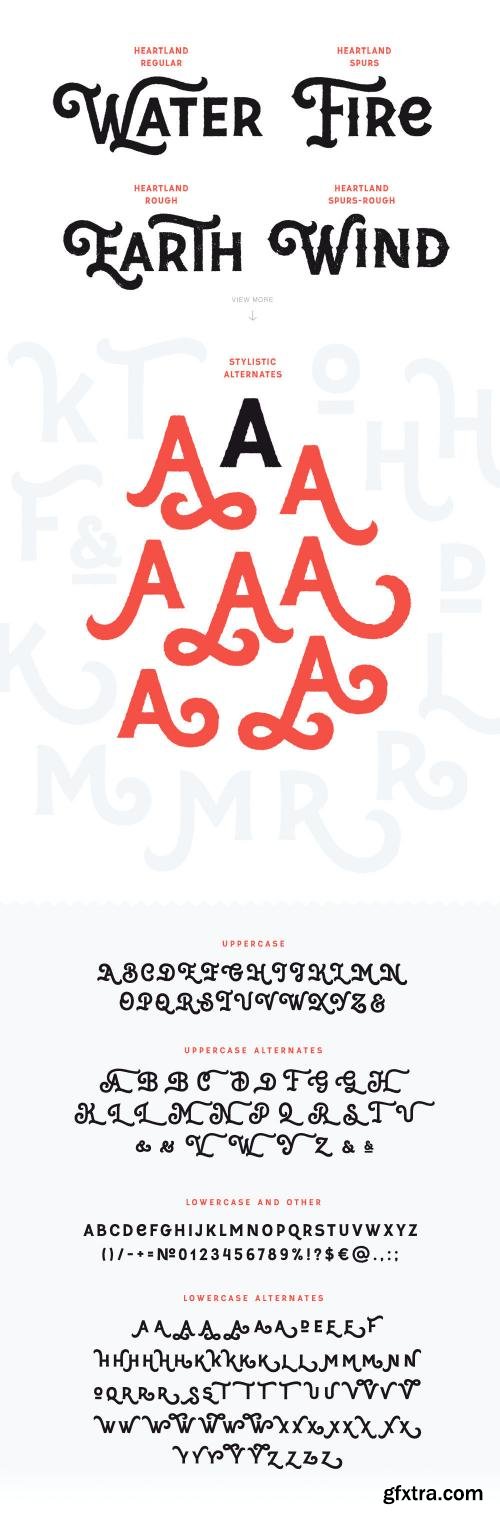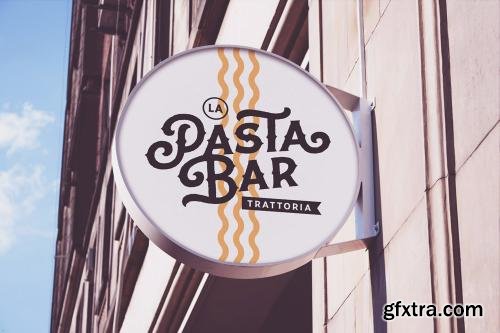
Heartland Font The Heartland is handcrafted font that comprised of 4 variations: Regular, Rough, Spurs and Spurs-Rough. This is sufficiently contrast typeface, which creating the vintage atmosphere and in some way saturated American typography style. Heartland can be used like typesetting (lowercase letters) and like decorative font (uppercase letters and different stylistic alternates of lowercase). It is perfect for creating logos, t-shirt lettering, package, invitations and any key text in design. Archive includes: TTF and OTF font files and small instruction for using stylistic alternates. If you have any questions feel free to contact me. Hope you enjoy it!